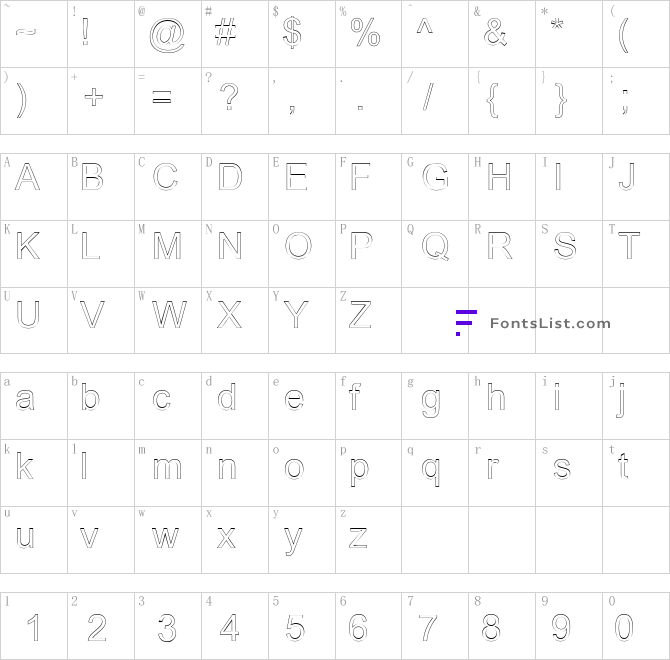
- Font Name:Arialic Hollow
Arialic-Hollow.ttf is a very beautiful artistic font, Arialic-Hollow.ttf is widely used in the design and printing of various books and pictures,Arialic-Hollow.ttf has a strong visual impact,Arialic-Hollow.ttf is a commonly used font in newspapers, magazines and books, and is used in posters, e-commerce Poster design, store design, logo design, font design and other fields.Arialic-Hollow.